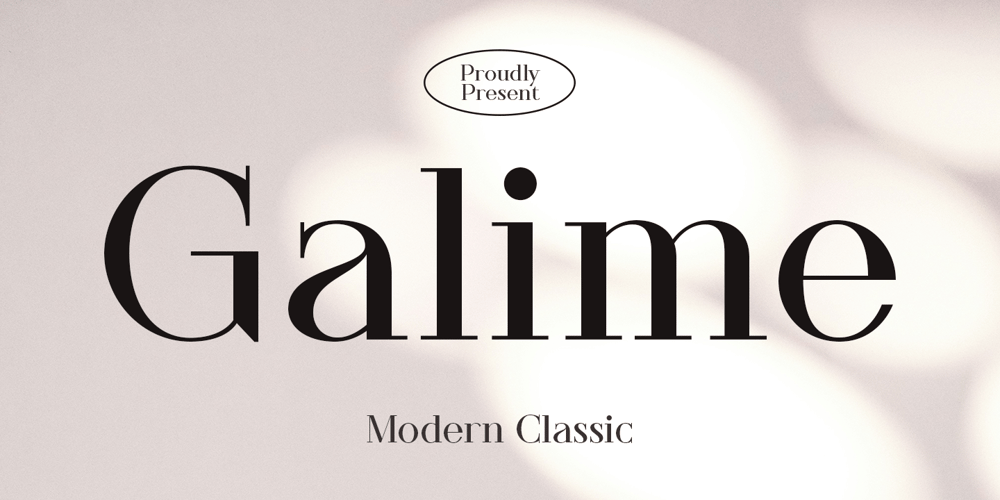
Galime
Galime font
Galime Font Family was designed by Novitasari Romli and published by Novitype. Galime contains 1 styles and family package options. Gamile is a modern, classy serif typeface inspired by classic serif typography with a contemporary touch. It combines chic, minimal, and elegant features with smooth curves and solid strokes, exuding confidence and style.Enhance your design with Gamile, which includes numerous stylistic alternates for a sophisticated feel. It’s perfect for logos, invitations, cards, labels, fashion, furniture, mobile apps, editorials, magazines, and any project that needs an aesthetic touch.Features: Uppercase and lowercase Numbers and punctuation Compatible with PC and Mac Multilingual support Stylistic alternates Stylistic sets 01-05 Ligatures